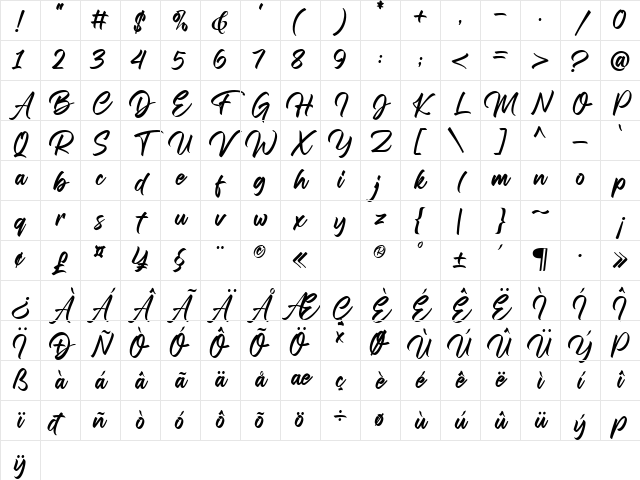
Fall in love Regular
Foundry: Namara Creative Studio
Designer: Eep Apringga
Design Context for Fall in love
Fall in love is a composed and adaptable typeface that performs quietly and consistently across a wide range of design contexts.